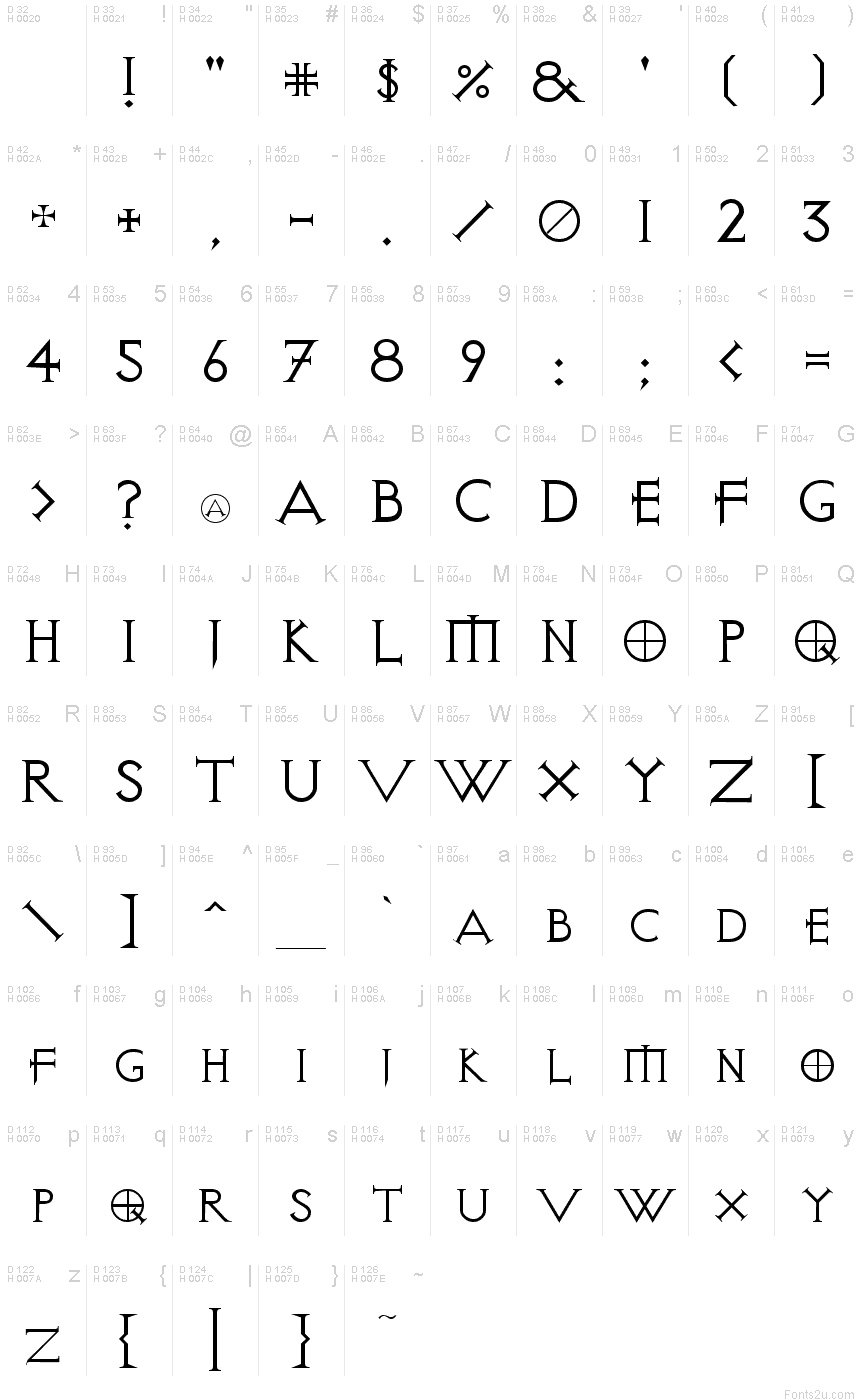
Visitation Regular
Visitation by Eric Oehler is a free retro display font with a late-Victorian, poster-lettering mood. The letters mix tall, lightly built forms with sharp serif points and a few soft, calligraphic curls, so the font feels formal at first glance but never stiff.
It fits period branding, book jackets, event posters, title cards, and magazine cover lines where a little antique drama helps set the tone. As a free font, Visitation also works well for short pull quotes or monogram-style initials, because those tapered strokes and gently ornamental curves give even a few letters a distinct historical flavor.